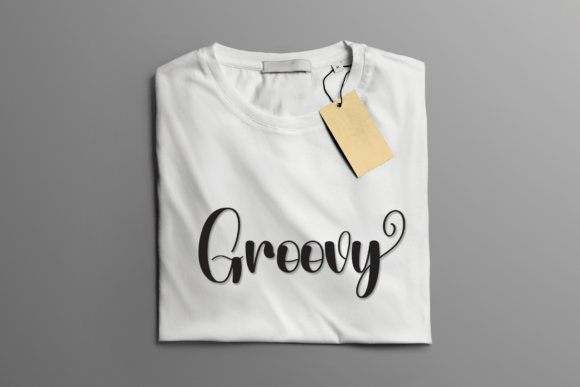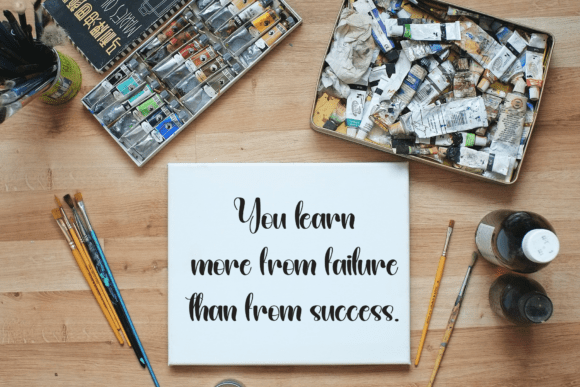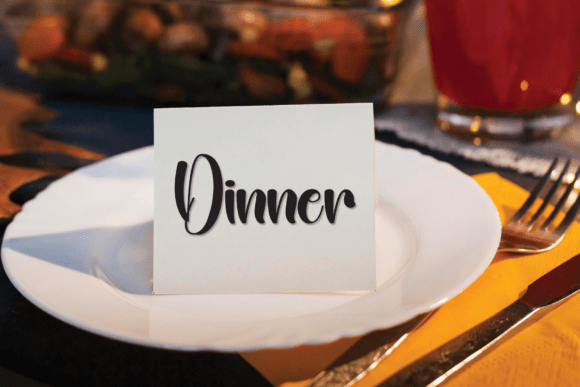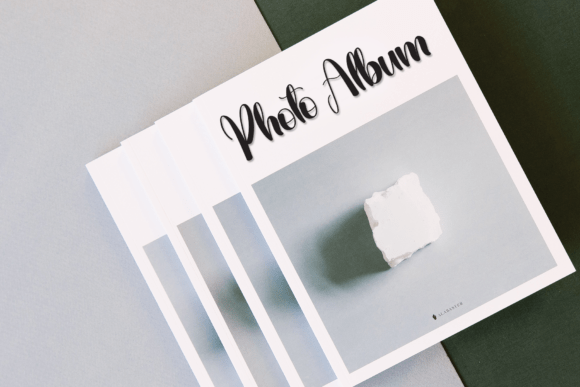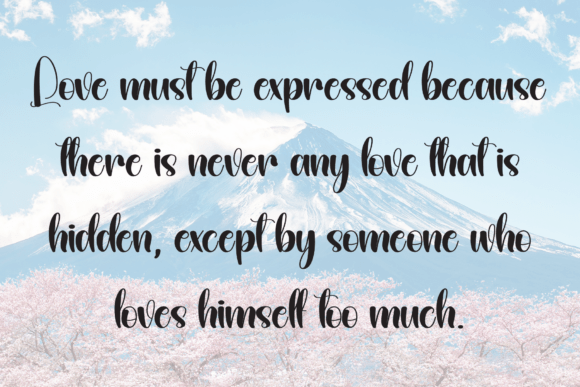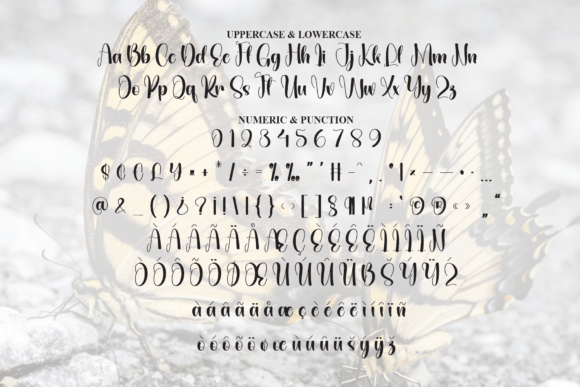
Introducing Butterfly Font: The Sweetest Addition to Your Design Projects
Are you tired of using the same old fonts in your design projects? Do you want to add a touch of whimsy and playfulness to your creations? Look no further than Butterfly Font, a uniquely handwritten display font that’s sure to bring a light-hearted vibe to your work. In this article, we’ll dive into the delightful charm of Butterfly Font and explore how it can be used to infuse joy into your designs.
The Delightful Charm of Butterfly Font
Butterfly Font is a one-of-a-kind, handwritten display font that’s been sweetly designed to bring a smile to your face. Its playful aesthetic is perfect for designers and crafters who want to add a touch of fun and personality to their work. Whether you’re creating wedding invitations, greeting cards, or any other design project, Butterfly Font is the perfect way to make it stand out from the crowd.
What Makes Butterfly Font So Special?
So, what sets Butterfly Font apart from other fonts? Here are just a few things that make it so special:
- Uniquely Handwritten: Butterfly Font is a truly unique, handwritten font that’s been carefully crafted to bring a personal touch to your designs.
- Playful Aesthetic: This font has a playful, carefree vibe that’s perfect for designers who want to add a touch of whimsy to their work.
- Versatile: Butterfly Font can be used for a wide range of design projects, from wedding invitations and greeting cards to posters and social media graphics.
- Easy to Read: Despite its playful aesthetic, Butterfly Font is surprisingly easy to read, making it perfect for use in both digital and print designs.
Using Butterfly Font in Your Design Projects
So, how can you use Butterfly Font in your design projects? Here are a few ideas to get you started:
- Wedding Invitations: Add a touch of romance and whimsy to your wedding invitations with Butterfly Font.
- Greeting Cards: Use Butterfly Font to create one-of-a-kind greeting cards for birthdays, holidays, and other special occasions.
- Posters and Flyers: Add a playful touch to your posters and flyers with Butterfly Font.
- Social Media Graphics: Use Butterfly Font to create eye-catching social media graphics that are sure to stand out.
Tips for Getting the Most Out of Butterfly Font
Here are a few tips for getting the most out of Butterfly Font:
- Pair it with Other Fonts: Experiment with pairing Butterfly Font with other fonts to create a unique and eye-catching look.
- Use it in Combination with Images: Use Butterfly Font in combination with images to add a touch of personality to your designs.
In conclusion, Butterfly Font is a uniquely handwritten display font that’s sure to bring a light-hearted vibe to your design projects. With its playful aesthetic and versatile design, it’s the perfect way to infuse joy into your creations. Whether you’re a designer, crafter, or DIY enthusiast, Butterfly Font is a must-have addition to your font collection.